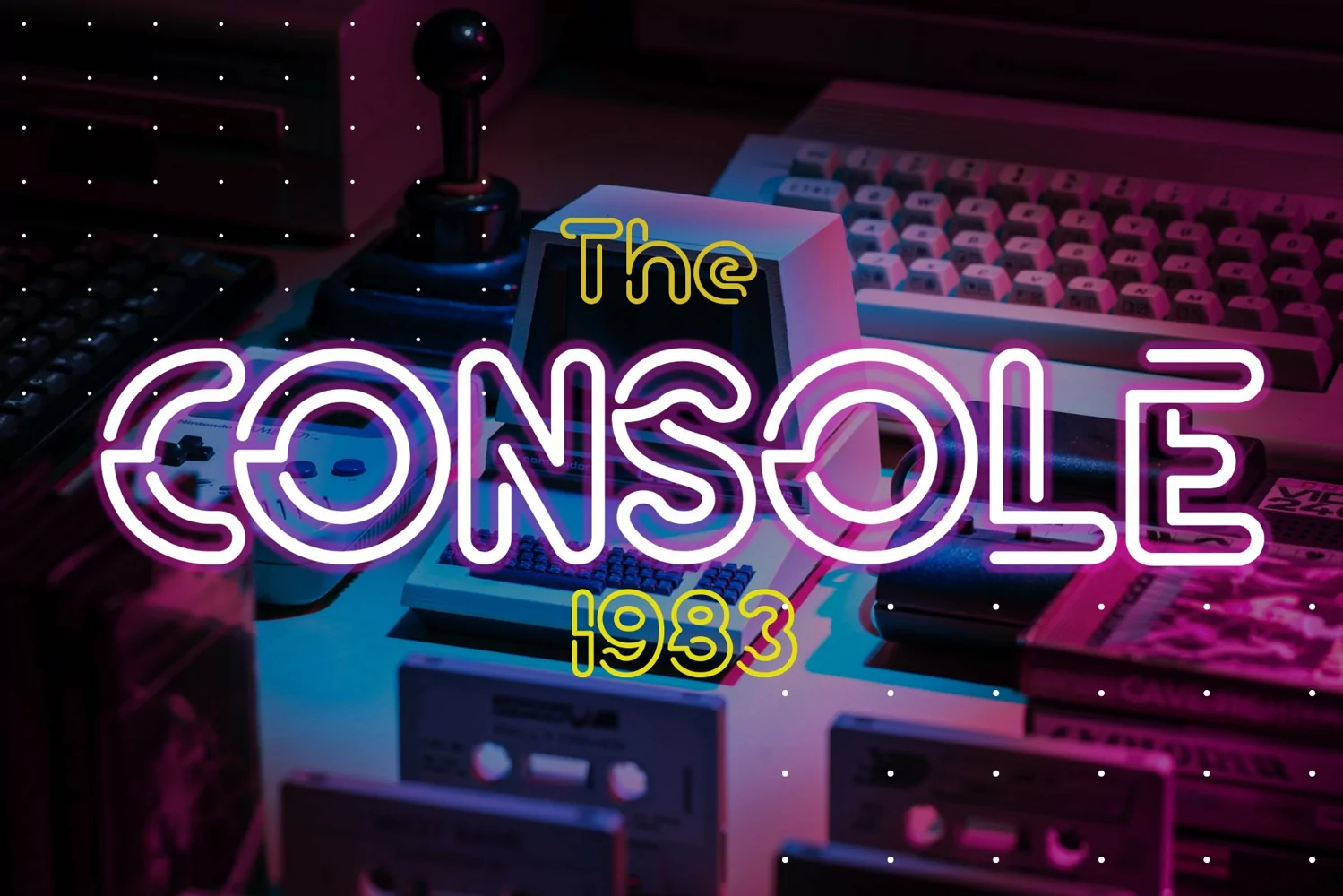
Neon Ballroom
**Neon Ballroom Font**
This pair was inspired by the retro poster design that i saw on some coffee shop, It was crafted by hand specially to add natural handmade feeling in its brand identity than i make it clean with pentool.
Neon Ballroom Font is very good looking in logo, labels, product packaging, invitations, advertising and others.